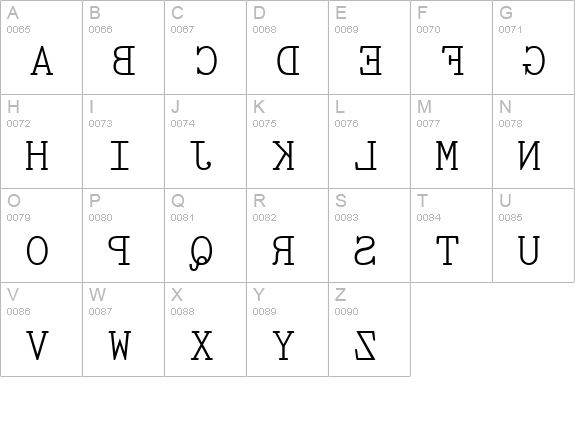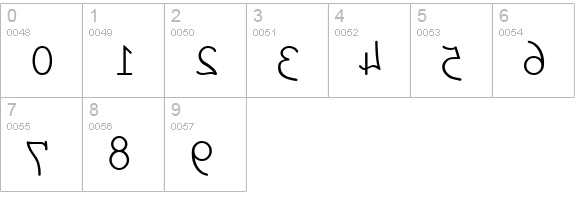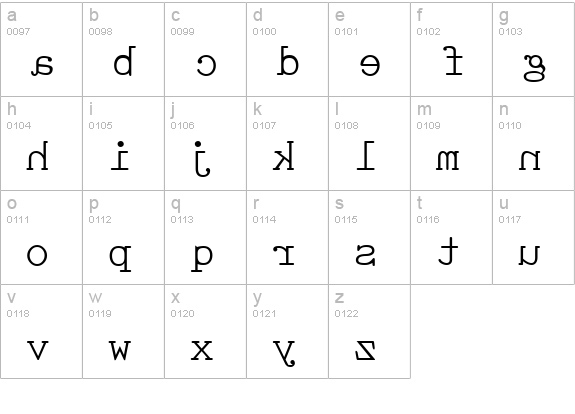
Sdrawkcab Regular Font Details
Sdrawkcab Regular is the standard, neutral variant in the Sdrawkcab typeface family \xE2\x80\x94 well suited to general body text, paragraphs, and standard typographic work.
Sdrawkcab Regular font is a playful and quirky typeface that will surely catch the attention of any viewer. Its unique design features reversed letterforms, adding a delightful twist to your designs. The letters are carefully crafted to maintain readability, making it suitable for a wide range of projects. Whether you're designing a poster, logo, or website, Sdrawkcab Regular font will inject a sense of fun and creativity into your work. Its bold and distinct style is perfect for conveying a sense of playfulness and lightheartedness. The best part is that Sdrawkcab Regular font is free! You can easily download this font from FontsMarket.com and start using it in your projects right away. Its availability at no cost makes it an excellent option for designers on a budget or those who simply appreciate a good freebie. Don't miss out on the opportunity to add a touch of whimsy to your designs with Sdrawkcab Regular font. Download it today and let your creativity flow freely!